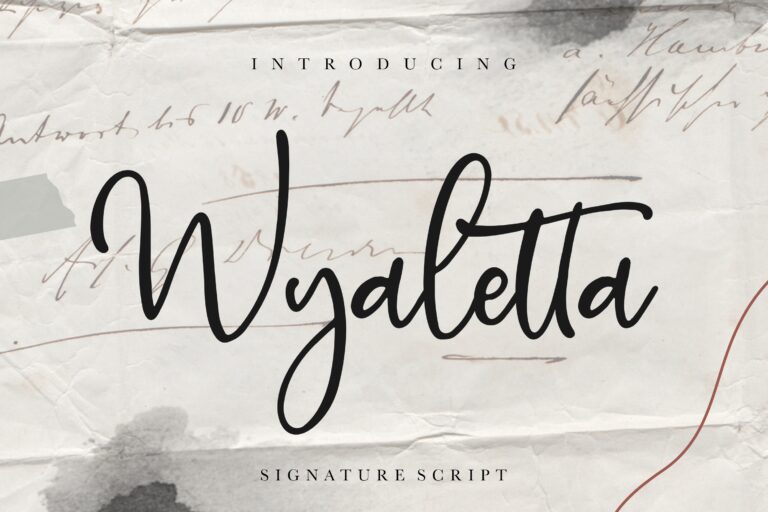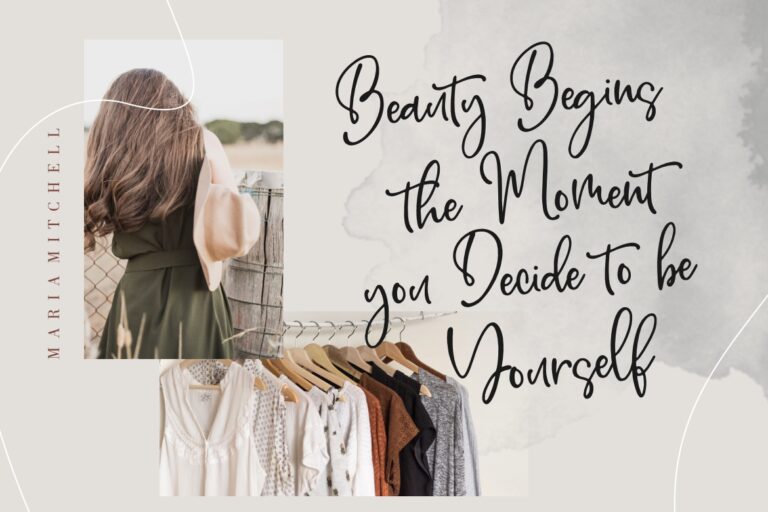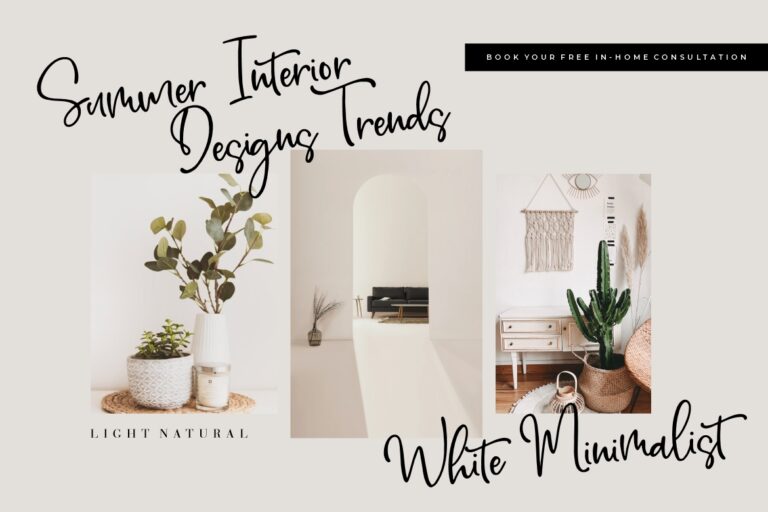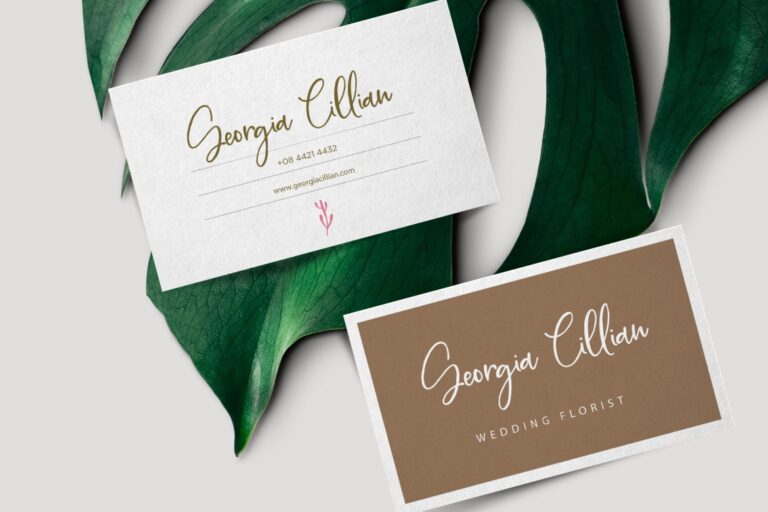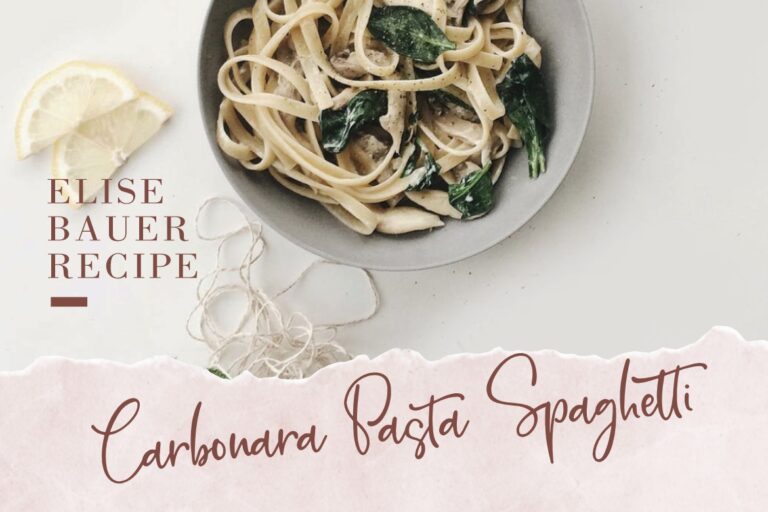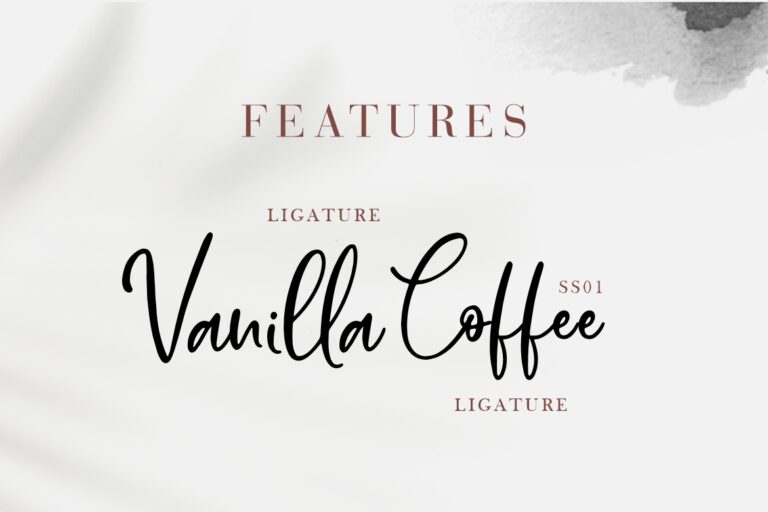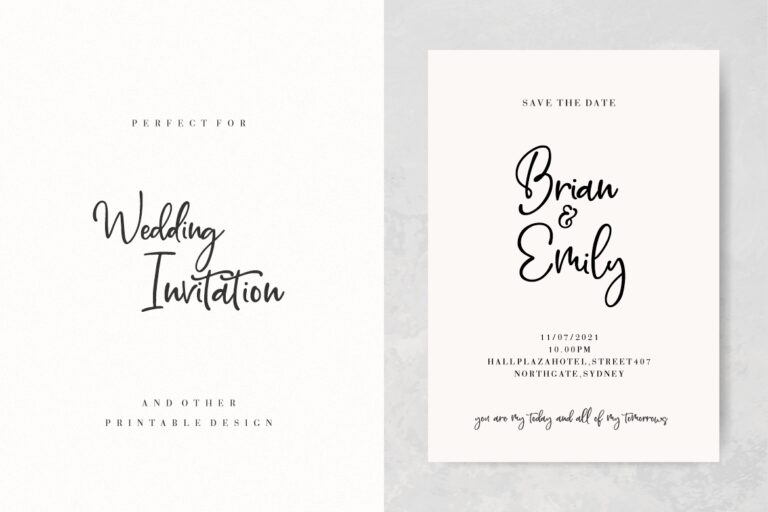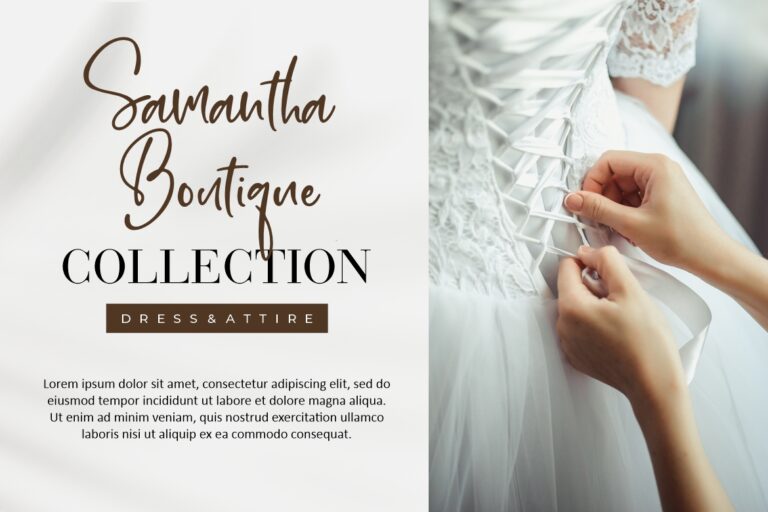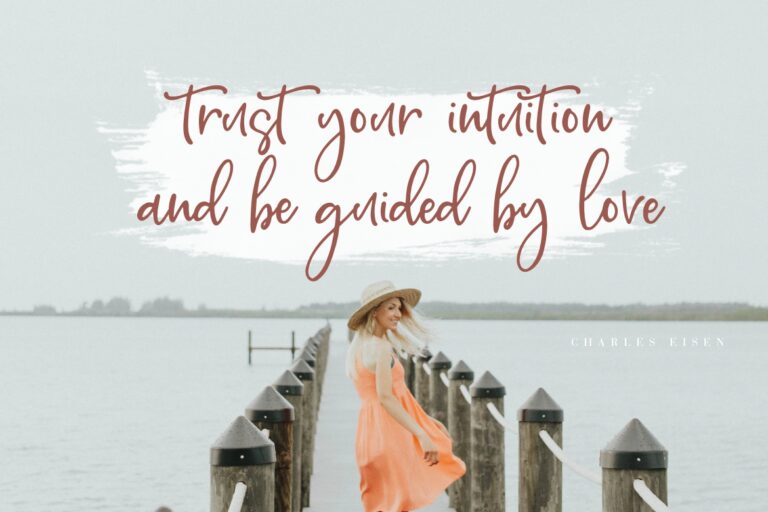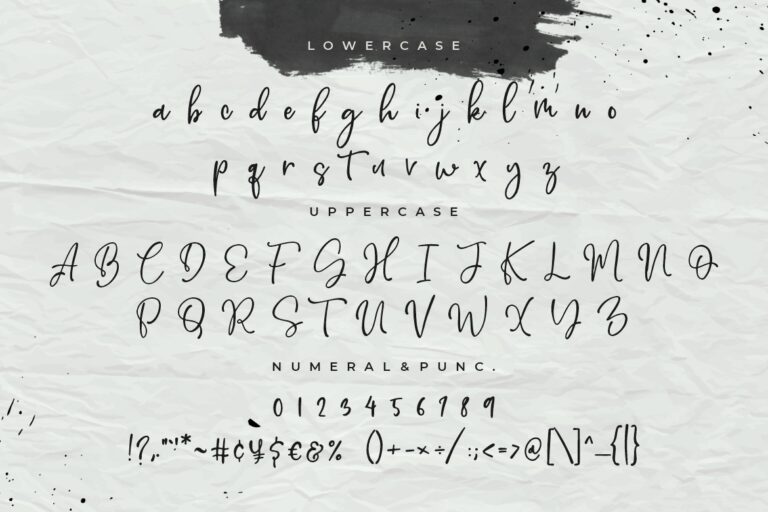
Wyaletta Signature Script
Wyaletta a signature script font that looks classy, elegant and sophisticated.
Wyaletta would perfect for photography, watermark, social media posts, advertisements, logos & branding, invitation, product designs, label, stationery, wedding designs, product packaging, special events or anything that need handwriting taste.
- Ligature, Alternate & Swashes